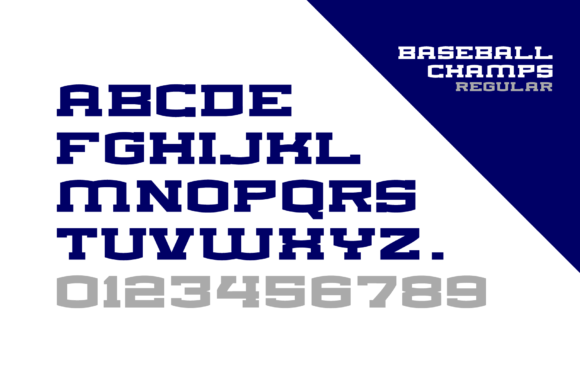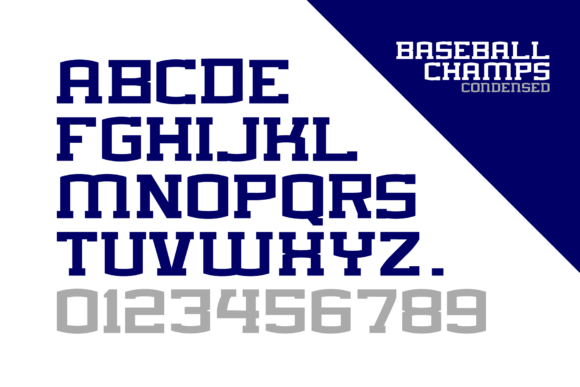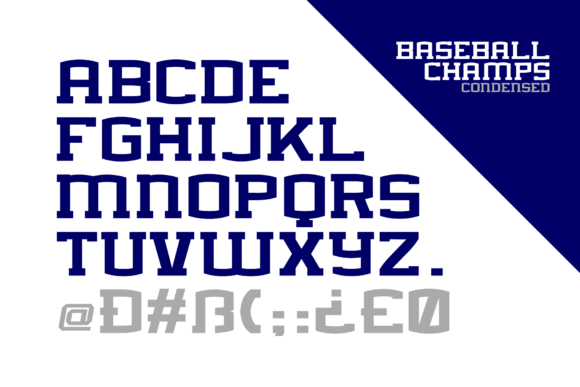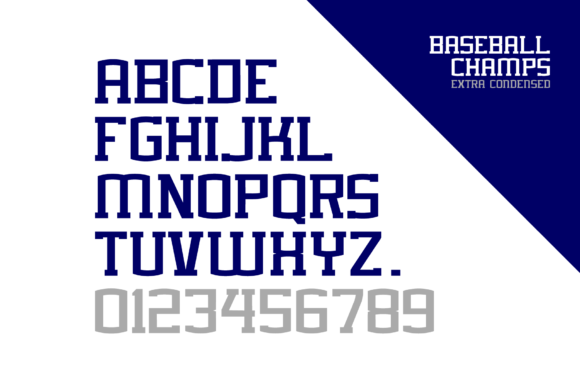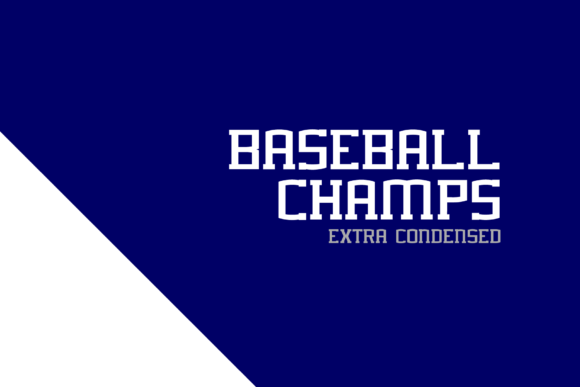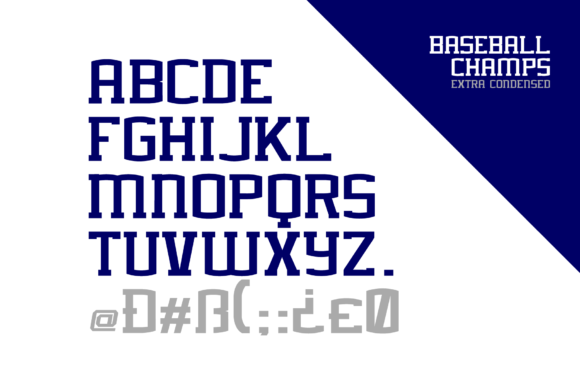
Introducing Baseball Champs Font: Elevate Your Designs with a Bold and Sporty Slab Serif
Are you a designer or crafter looking for a font that can add a touch of excitement and energy to your creations? Look no further than Baseball Champs, a bold and sporty slab serif font that’s perfect for a wide range of projects. In this article, we’ll take a closer look at the features and benefits of Baseball Champs, and explore how it can become an incredible asset to your font library.
What is Baseball Champs Font?
Baseball Champs is a slab serif font that’s designed to evoke the spirit of sports and competition. With its bold and sturdy letterforms, this font is perfect for creating eye-catching headlines, titles, and graphics that demand attention. Whether you’re working on a project for a sports team, a fitness brand, or simply want to add a touch of athletic flair to your design, Baseball Champs is the perfect choice.
Key Features of Baseball Champs Font
- Bold and Sporty Design: Baseball Champs features a bold and sporty design that’s perfect for creating eye-catching graphics and headlines.
- Slab Serif Style: The font’s slab serif style gives it a sturdy and athletic feel that’s perfect for sports and fitness-related projects.
- High Versatility: Baseball Champs can be used for a wide range of projects, from sports and fitness to lifestyle and entertainment.
- Easy to Read: Despite its bold design, Baseball Champs is easy to read, even at smaller sizes.
Benefits of Using Baseball Champs Font
So why should you choose Baseball Champs for your next project? Here are just a few benefits of using this versatile font:
- Adds Energy and Excitement: Baseball Champs adds a touch of energy and excitement to any design, making it perfect for projects that need to grab attention.
- Perfect for Sports and Fitness Projects: The font’s sporty design makes it a natural fit for sports and fitness-related projects, from team logos to fitness branding.
- Elevates Your Brand: Using a unique and high-quality font like Baseball Champs can help elevate your brand and make it stand out from the competition.
- Compatible with a Wide Range of Projects: Whether you’re working on a digital project or a print project, Baseball Champs is compatible with a wide range of applications and formats.
How to Use Baseball Champs Font
Using Baseball Champs is easy! Here are a few tips for getting the most out of this versatile font:
- Pair with Other Fonts: Baseball Champs pairs well with a wide range of fonts, from sans serifs to script fonts.
- Experiment with Colors: The font’s bold design makes it perfect for experimenting with bright and bold colors.
- Use for Headlines and Titles: Baseball Champs is perfect for creating eye-catching headlines and titles that demand attention.
- Add Texture and Patterns: Consider adding texture and patterns to your design to give it an extra boost of energy and excitement.
In conclusion, Baseball Champs is a bold and sporty slab serif font that’s perfect for designers and crafters looking to add a touch of energy and excitement to their creations. With its high versatility, easy readability, and bold design, this font is sure to become an incredible asset to your font library. Whether you’re working on a sports and fitness project or simply want to add a touch of athletic flair to your design, Baseball Champs is the perfect choice.